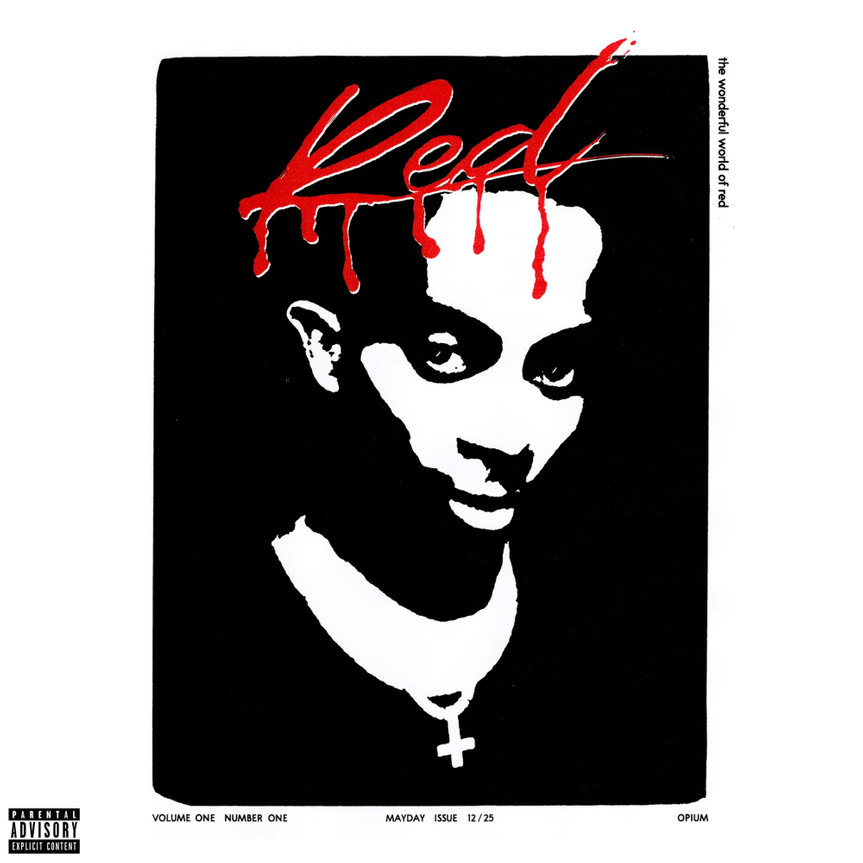
Whole Lotta Red Font
Fonts in UseWhole Lotta Red is the second studio album by American rapper Playboi Carti, released in December 2020. The album features a mix of punk rock and trap music, with guest appearances from Kanye West and Kid Cudi.
The album cover resembles a magazine cover from "Slash," a punk rock fanzine that was published by Steve Samiof and Melanie Nissen from 1977 to 1980. The album title and website text were likely created with the "Slash Signature" font by Din Studio, which can be downloaded for free with limited character set from the Fonts Used Section.